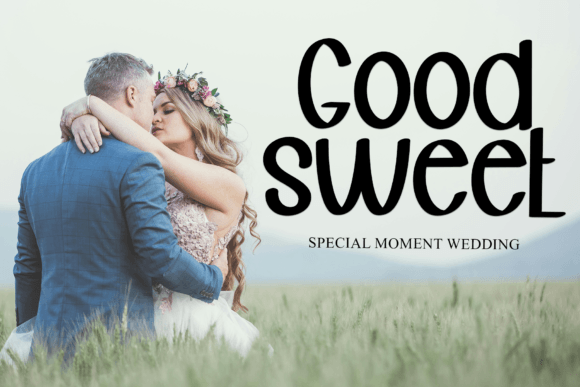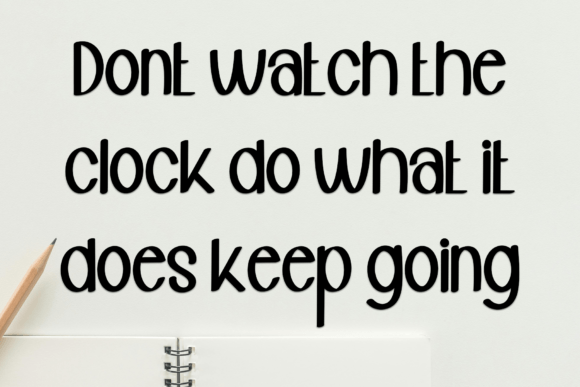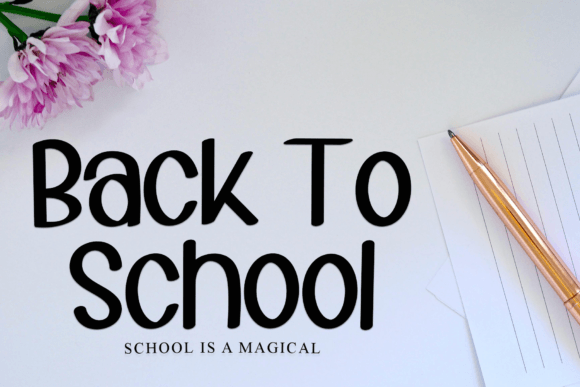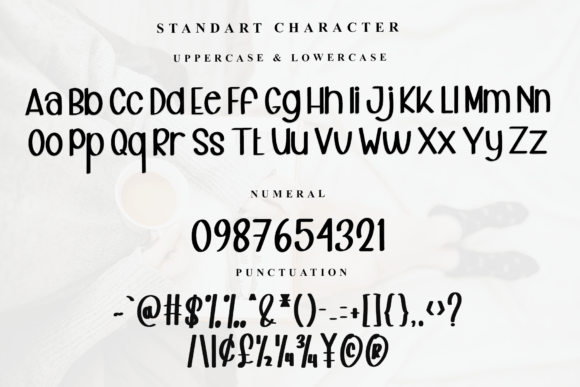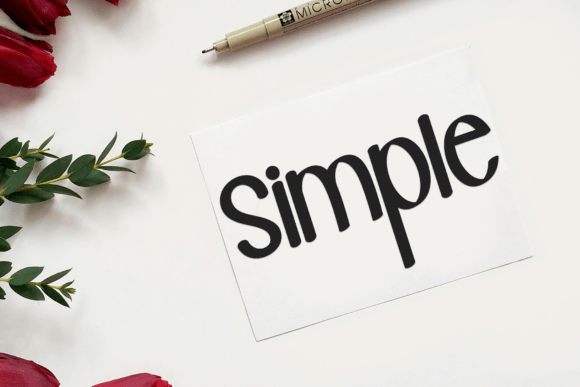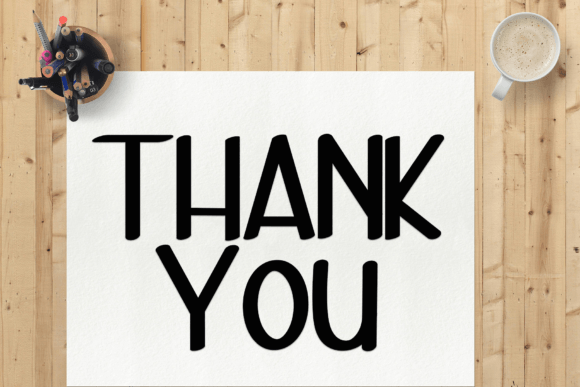
Adding a Personal Touch to Your Design
Remember the last time you received a handwritten letter from a loved one? The feeling of warmth and personality that comes with it is something that many of us cherish. It’s a reminder that even in the digital age, there’s still a place for handwritten charm in our designs.
For designers looking to add a similar touch to their work, the Daisy School Font is a great place to start. This fun, bold font is designed to look like it was written by hand, giving your text a cheerful, personal feel. Whether you’re creating a logo, social media post, or marketing campaign, the Daisy School Font is a versatile choice that’s sure to make your designs stand out.
Daisy School Font Key Features
- Size and Resolution: The font is designed to be highly legible at a wide range of font sizes, from 8pt to 72pt, and supports resolutions up to 300 DPI (dots per inch).
- Unique Characteristics: Daisy School Font features a playful, child-friendly design with rounded edges, making it ideal for educational materials, children’s books, and other applications where readability and visual appeal are crucial.
- Font Weight and Style: Daisy School Font comes in multiple font weights, including Light, Regular, Bold, and Extra Bold, as well as various font styles, such as Italic and Bold Italic, to provide flexibility and creativity.
- Scalability: The font is designed to be highly scalable, ensuring that it remains clear and readable even at small font sizes or when enlarged for accessibility purposes.
Daisy School Font Review
I recently had the chance to work with the Daisy School Font, and I must say it’s a delightful addition to any educational design project. Here’s what I like about it:
- ✨ Friendly and approachable: The font’s gentle curves and rounded edges make it perfect for creating a welcoming atmosphere in schools and educational institutions.
- ✨ Clear readability: The font is easy to read, even at smaller font sizes, making it ideal for headings, titles, and body text.
- ✨ Versatility: The font comes in a range of weights and styles, allowing designers to create a cohesive look across different elements of a design project.
- ⚠️ Limited language support: The font may not be suitable for designs that require support for non-Latin scripts.
- ⚠️ Limited customization options: While the font comes in various weights and styles, it may not be possible to create custom variations or tweak the font’s design to suit specific needs.
Overall, I’m impressed with the Daisy School Font’s potential for creating engaging and approachable designs. While it may have some limitations, its friendly and readable nature makes it a great choice for educational projects. With a little creative planning, designers can work around its limitations and create stunning designs that effectively communicate their message.
The Daisy School Font is perfect for creating a whimsical and playful atmosphere. It’s ideal for:
– Children’s educational materials
– Nursery decor
– Party invitations
– Digital products with a vintage or retro feel
Getting the Most Out of It
To get the most out of the Daisy School Font, try combining it with bold or italic styles for emphasis. You can also use it in conjunction with other fonts for a unique look. Experiment with different font sizes and colors to create a visually appealing design.